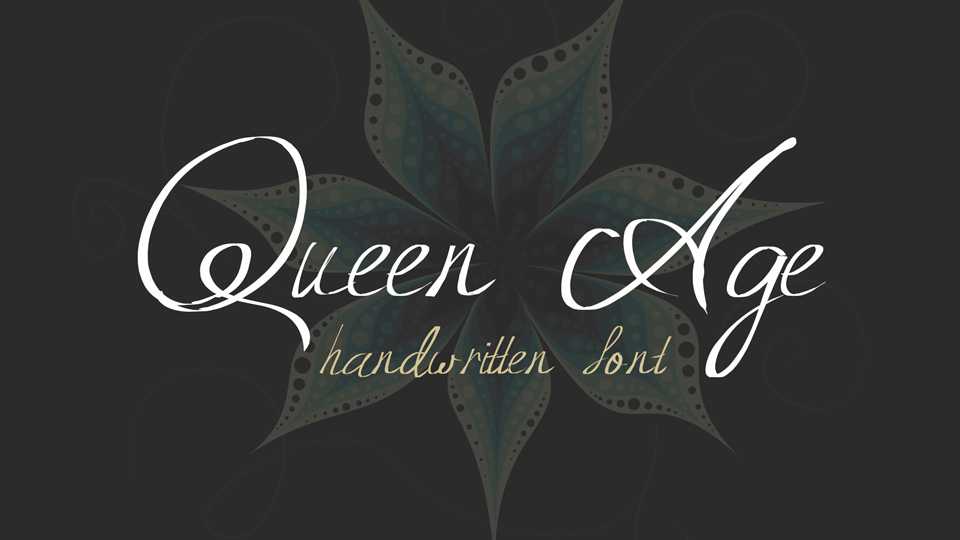
Download Queen Age font, a thin and elegant handwritten script. Queen Age font looks great for cards, letters, quotes, crafts and other beautiful projects.
Designer: Francis Fonye